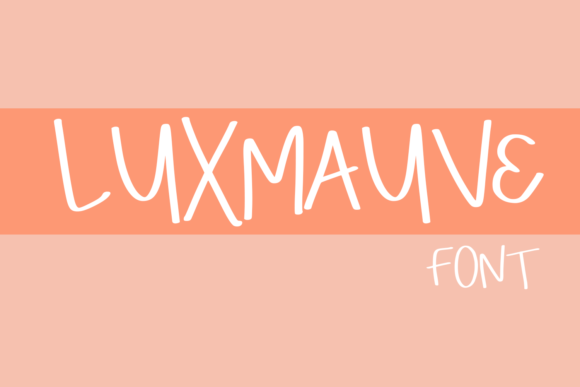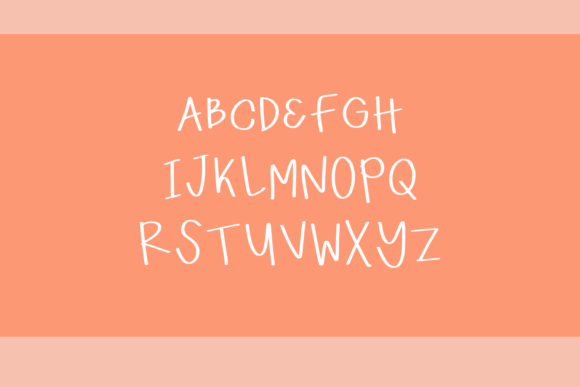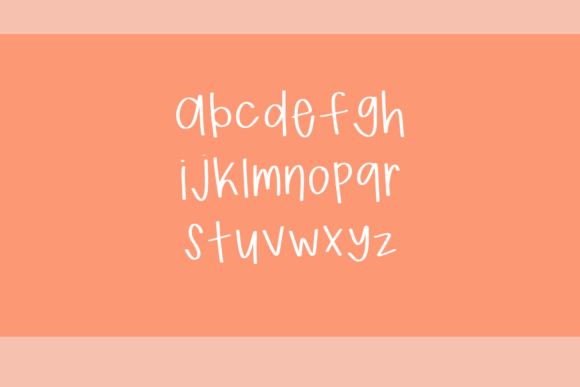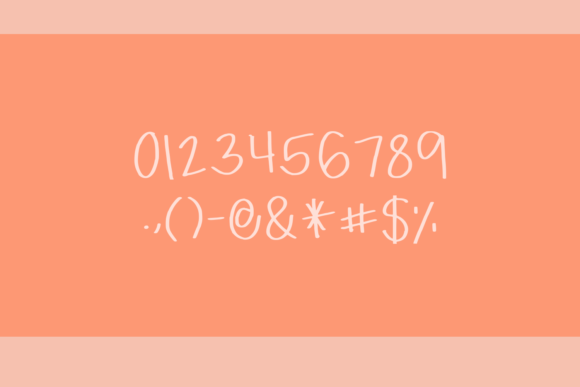
Luxmauve Font
About Luxmauve Font
Luxmauve is a simple, quirky and adaptable handwritten font. Its informal style and casual vibe will make this font a go-to choice for each of the creations that require a relaxed touch.